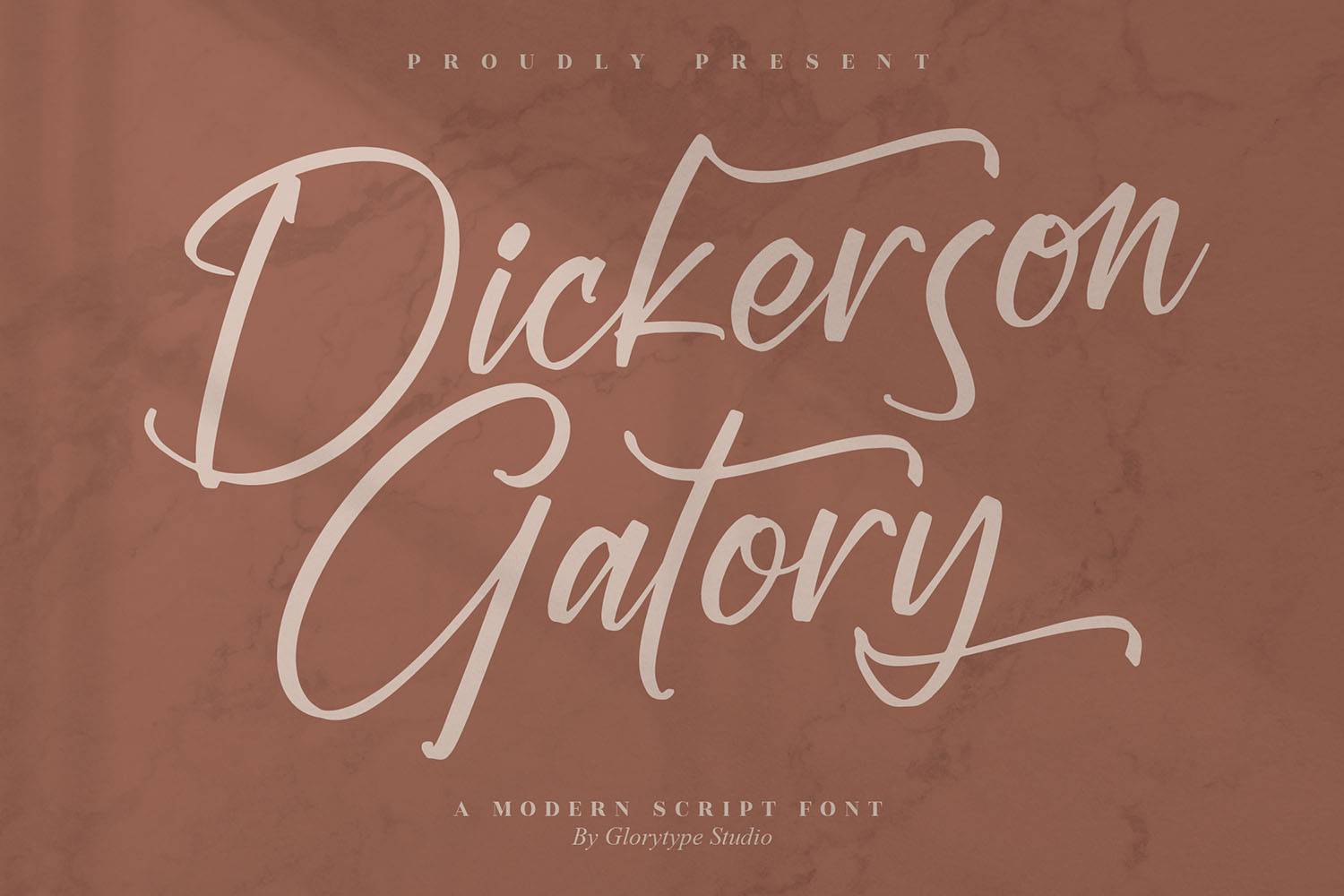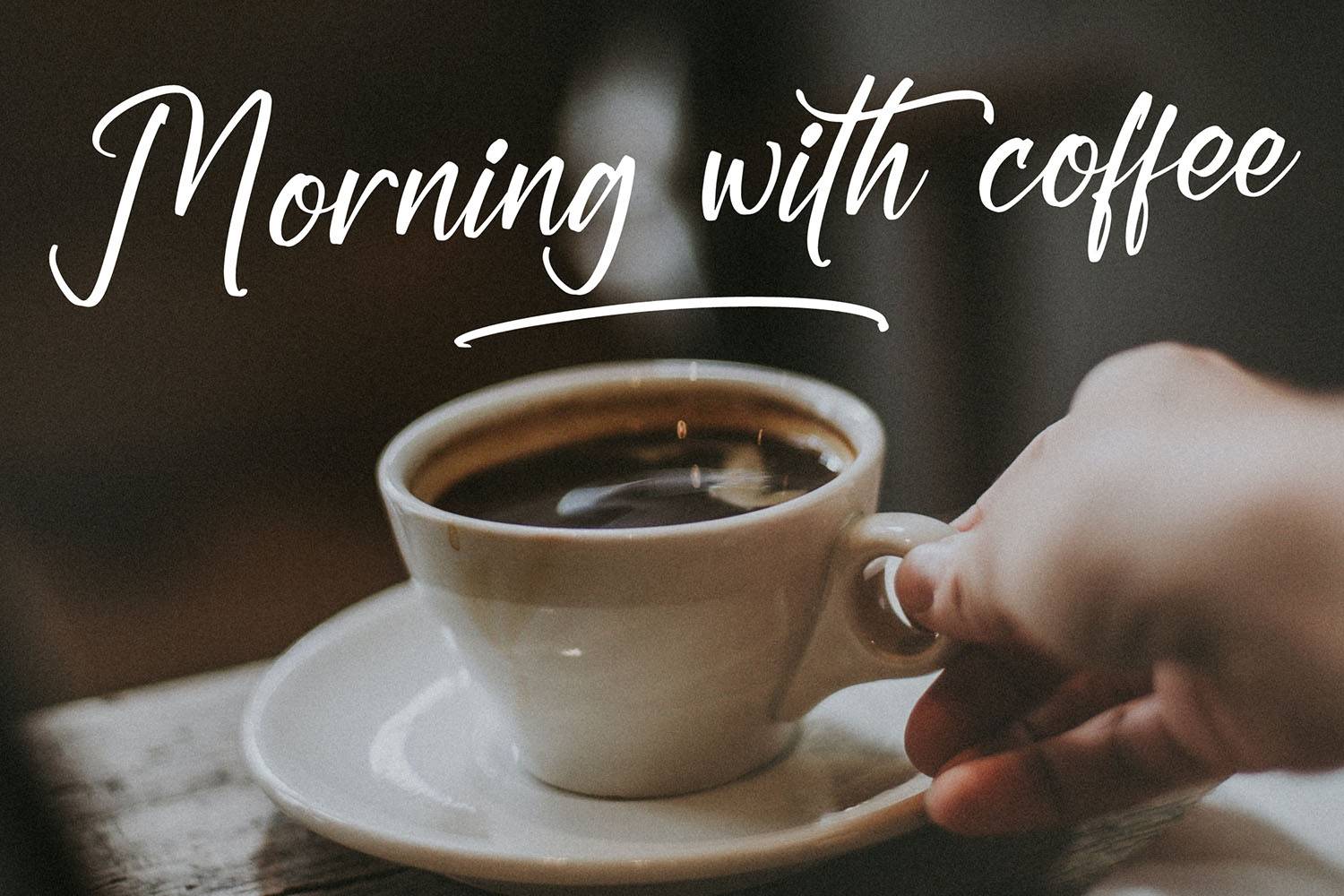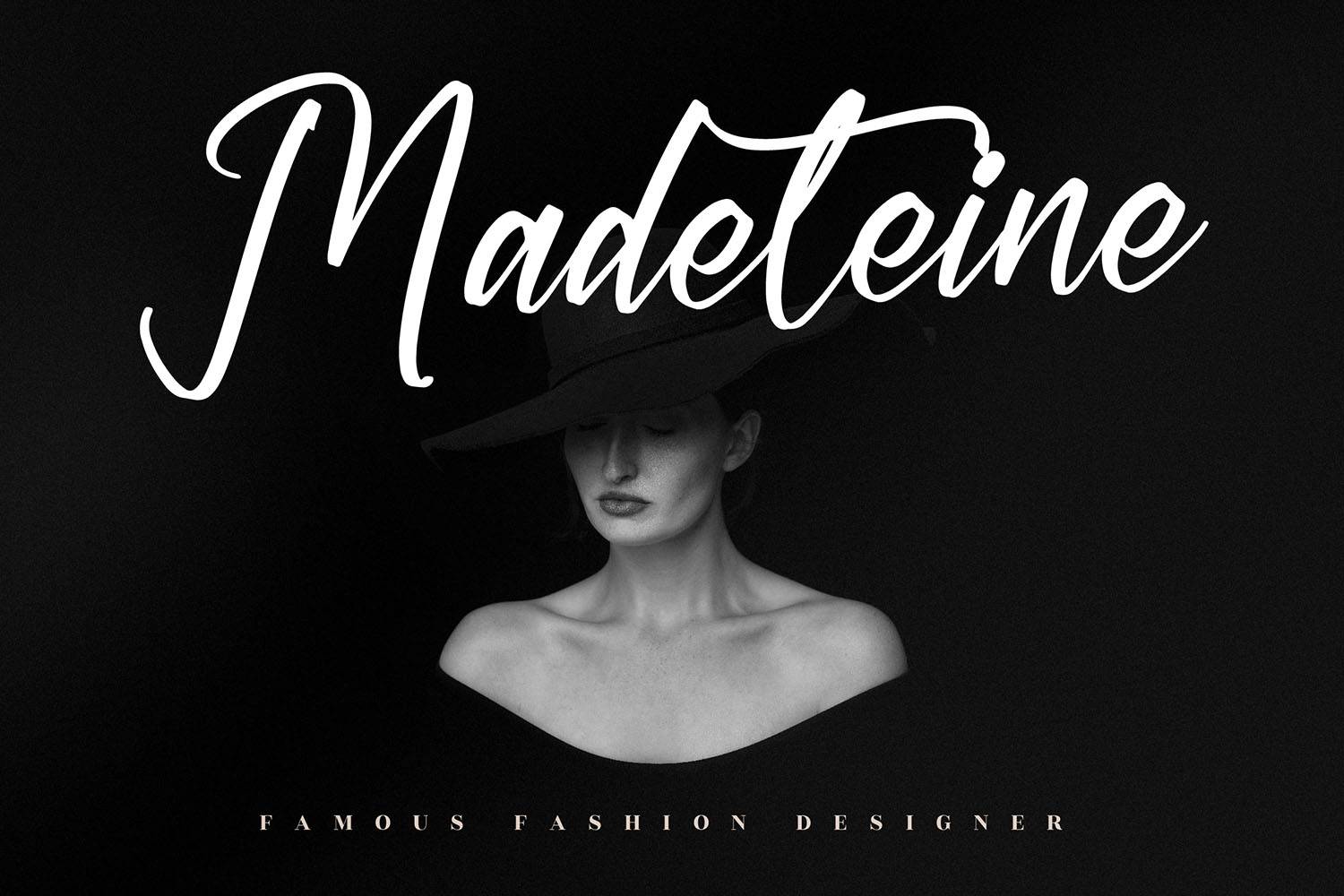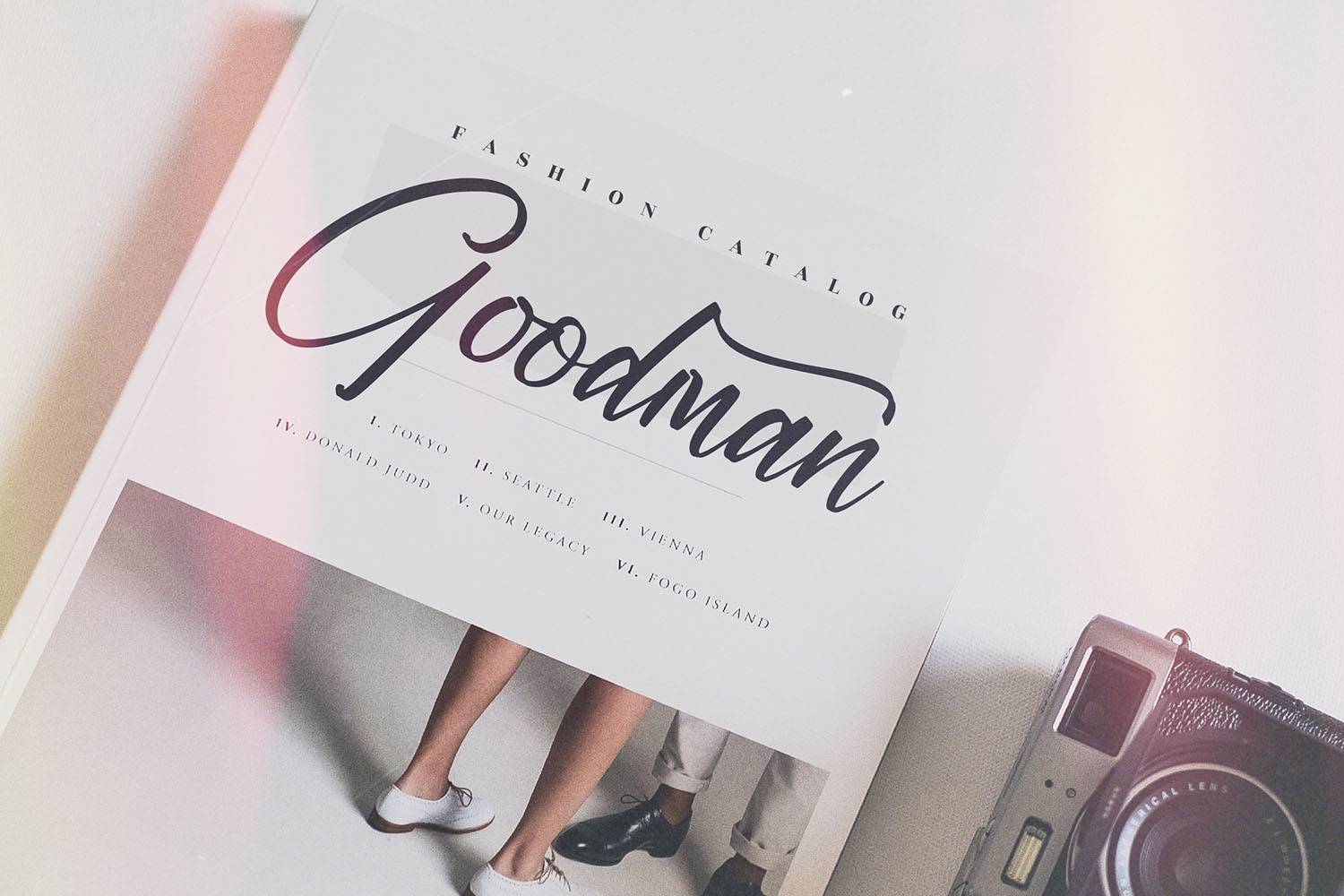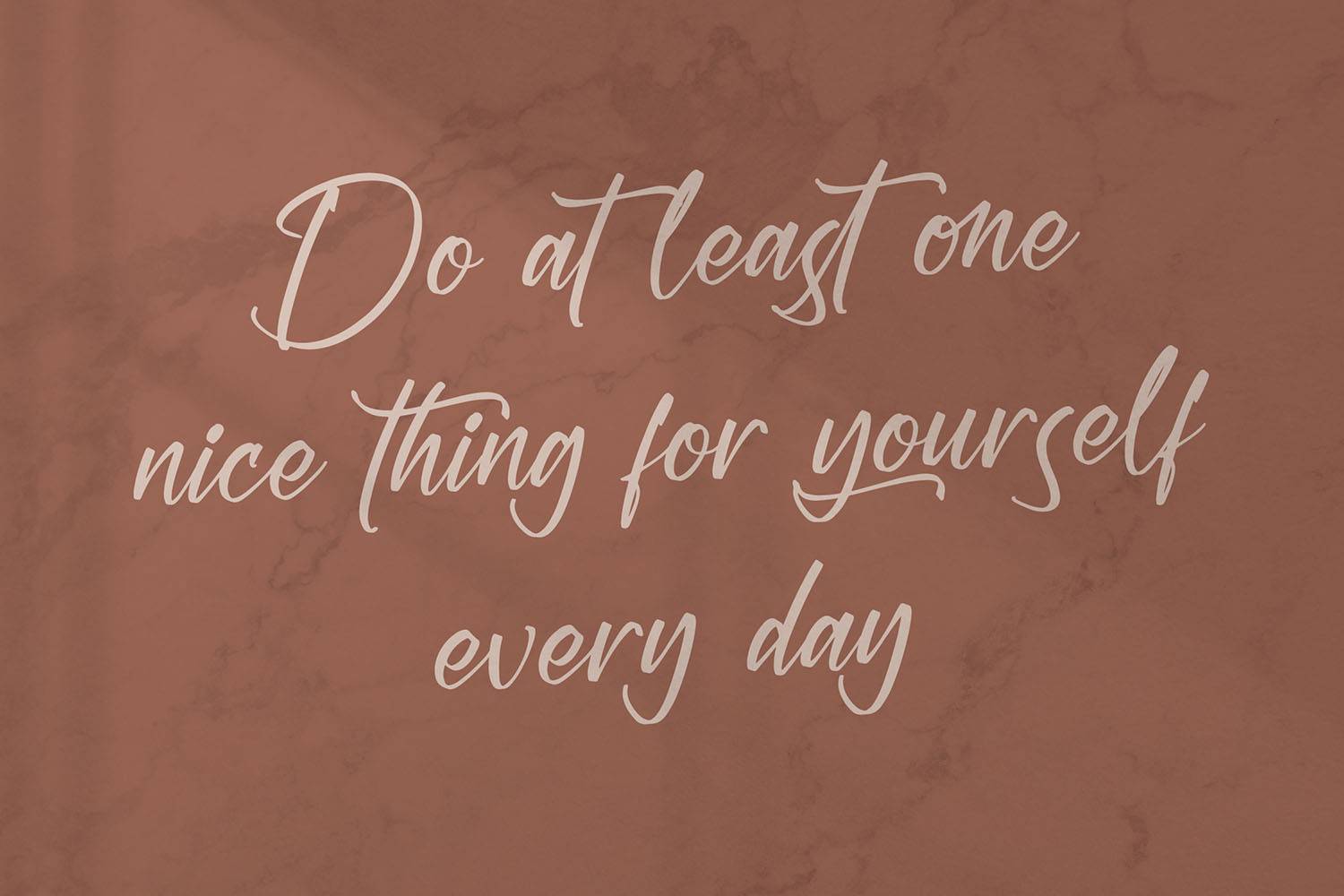
Dickerson Gatory is a stylish handwritten script font with a casual yet elegant feel. Its varied stroke weight and flowing letterforms give it a personal and artistic touch, making it ideal for creative branding, invitations, and modern editorial designs. This font works well when you want to convey warmth and sophistication with a contemporary handwritten charm.
Dickerson Gatory Font
About Dickerson Gatory Font